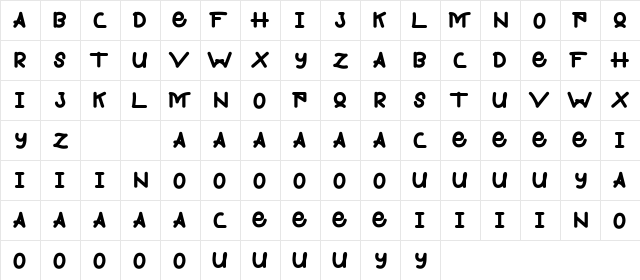
Kandis Marsh Demo Bold
| Foundry | Edric Studio |
| Designer | Yasri Ainun N & Sarah Suci Pauziah |
Design Context for Kandis Marsh Demo Typeface
Kandis Marsh Demo is a composed and adaptable typeface that performs quietly and consistently across a wide range of design contexts. The heavy weight commands attention and anchors typographic hierarchies.